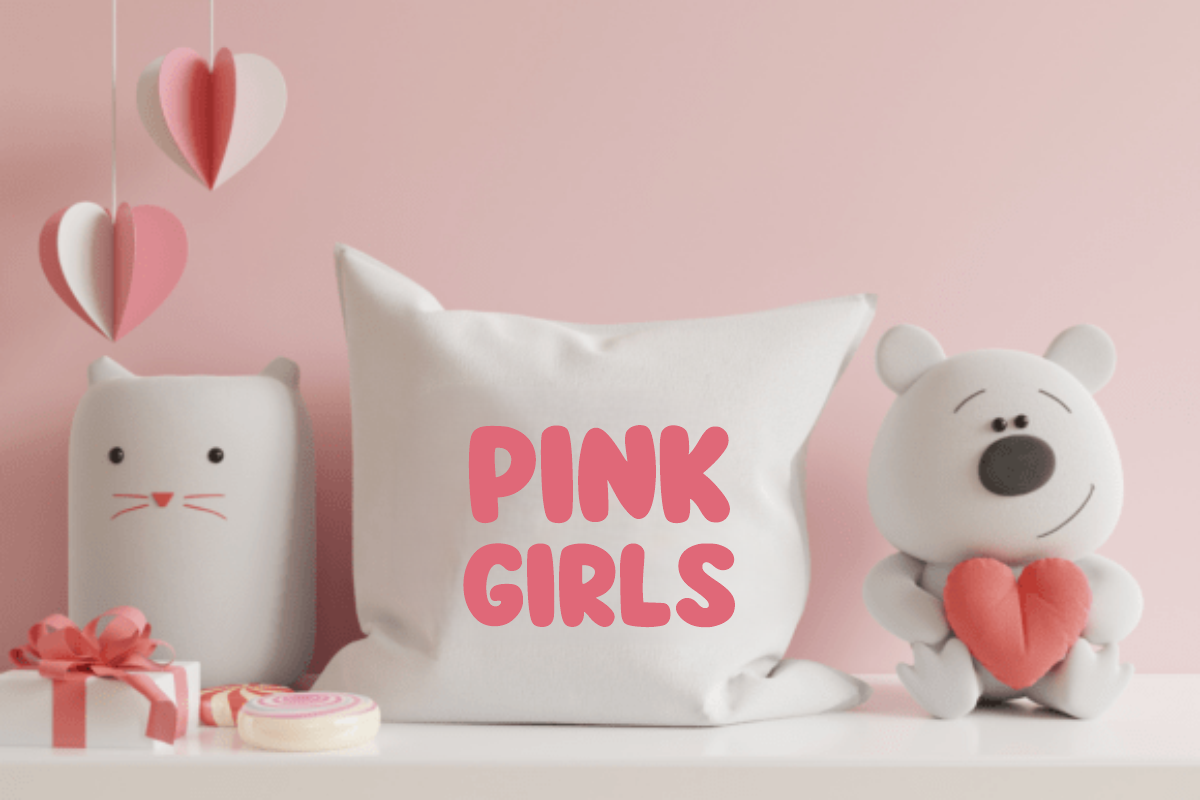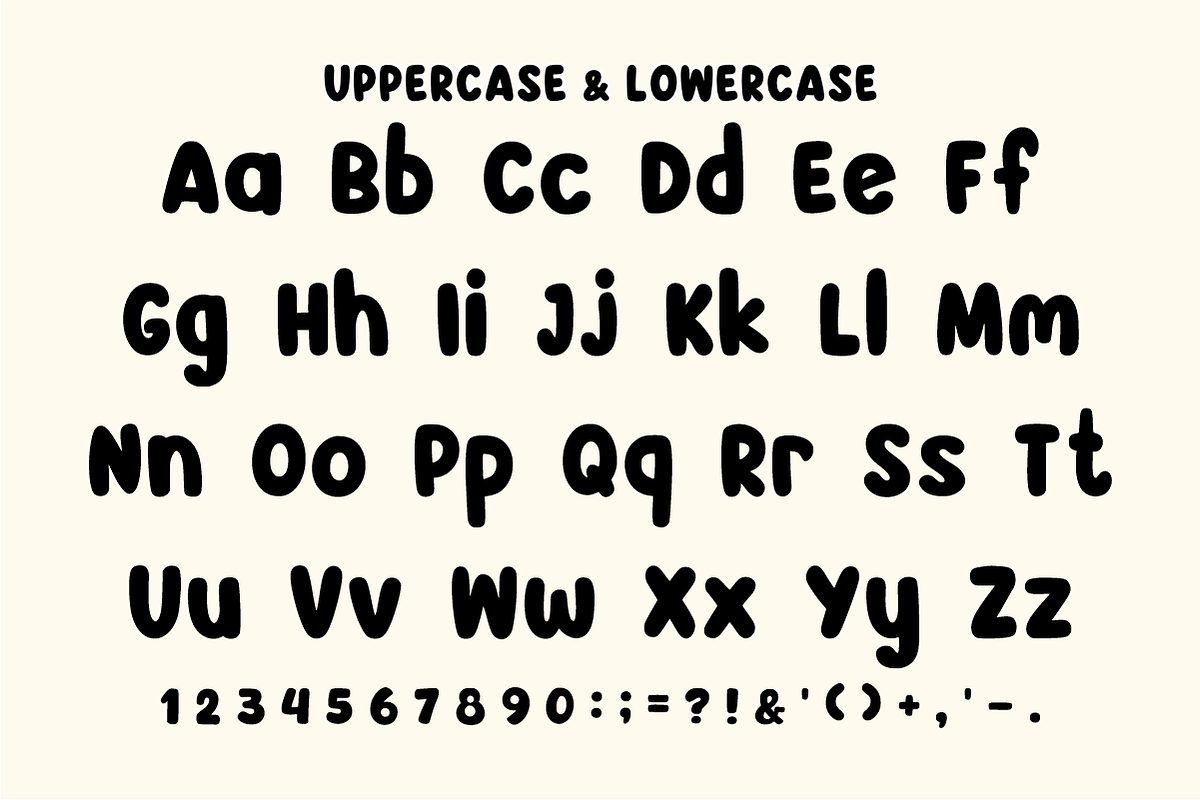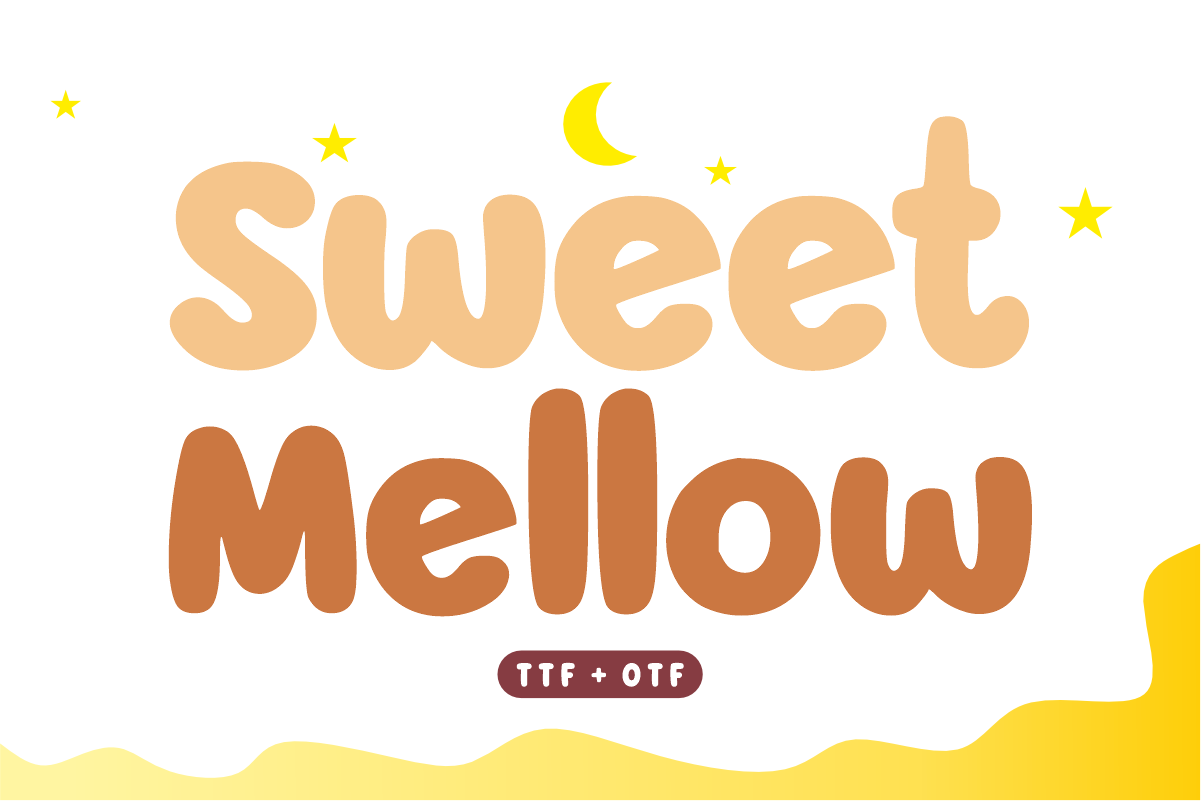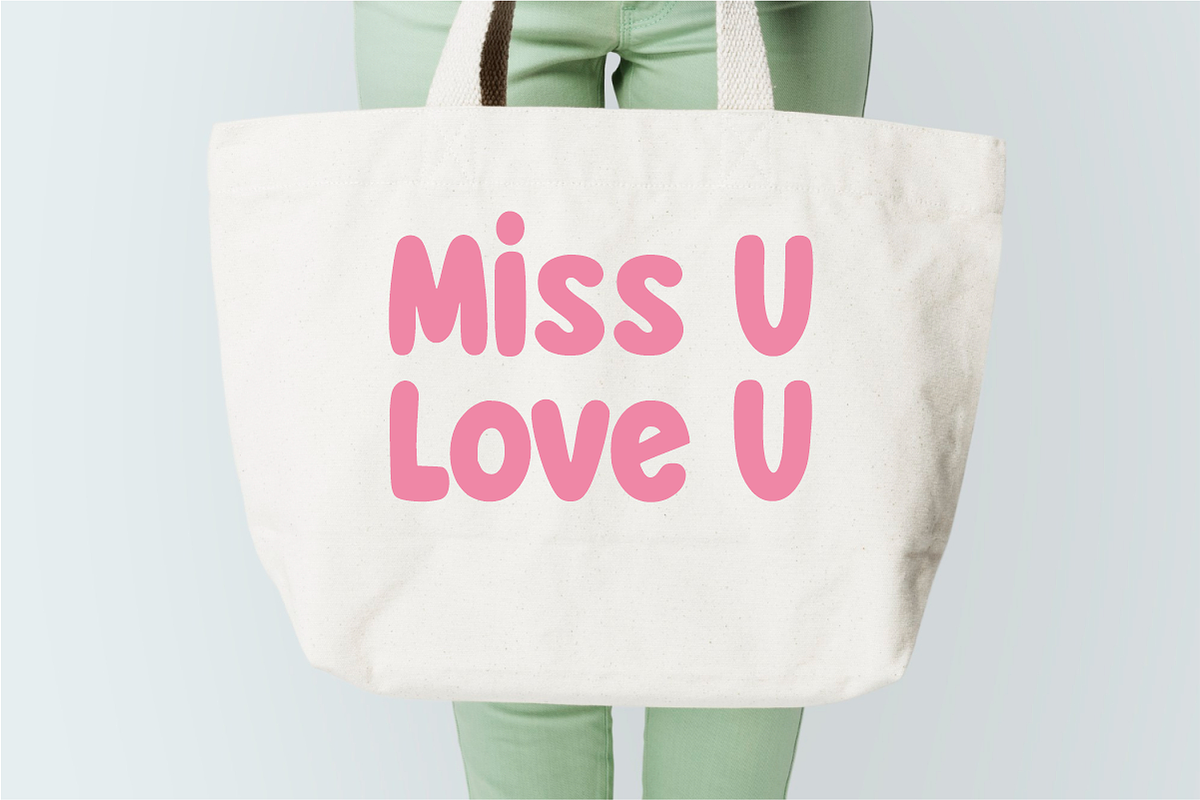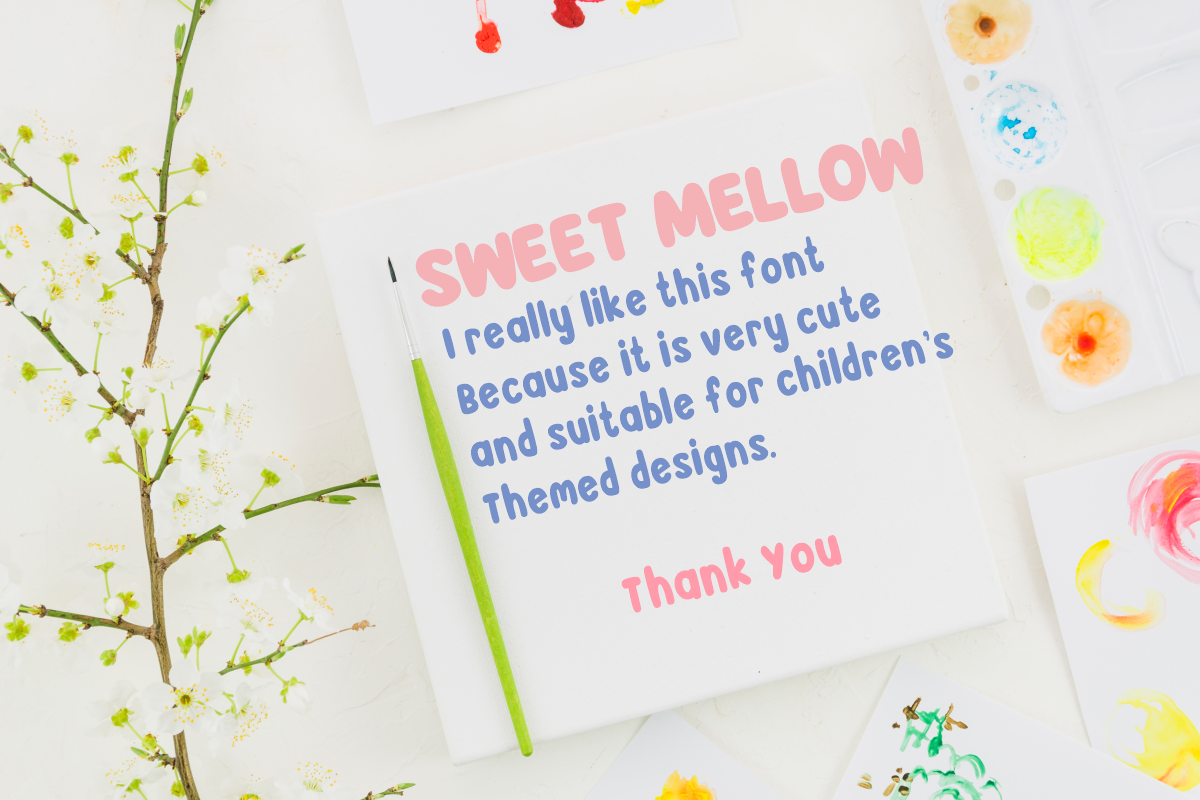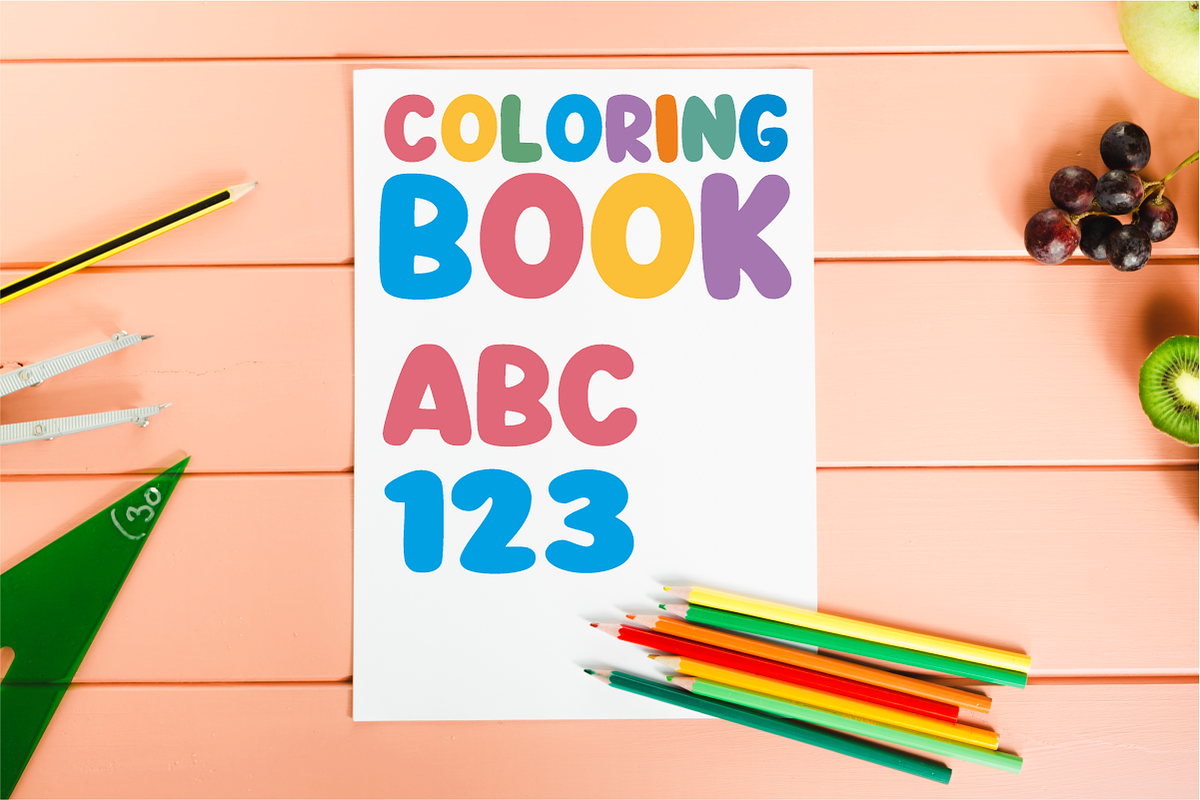
Sweet Mellow - Cute Rounded Font
Sweet Mellow is a charming, rounded display font featuring soft, bubbly letterforms and a cozy, handcrafted feel. Radiating warmth and gentle sweetness, this dreamy cartoon font is perfect for children's books, nursery wall art, cute branding, and creative craft projects. Every character is cleanly vectorized to guarantee high-resolution prints and smooth, effortless cutting on Cricut and Silhouette machines.
Uppercase & Lowercase Character Set
Numbers & Basic Punctuation
Cricut, Silhouette, and HTV vinyl cutting projects for kids' apparel, baby apparel, and soft decor
Etsy sellers creating cozy children's t-shirts, baby onesies, quote prints, and nursery wall art
Print-on-Demand (POD) products, bedtime storybook covers, mugs, and lifestyle accessories
Canva template creators designing baby shower invitations, birthday cards, and social media kits
Custom die-cut sticker packs, planner decals, and digital scrapbooking layouts
Teachers Pay Teachers (TpT) authors making warm classroom printables, story sheets, and bulletin boards